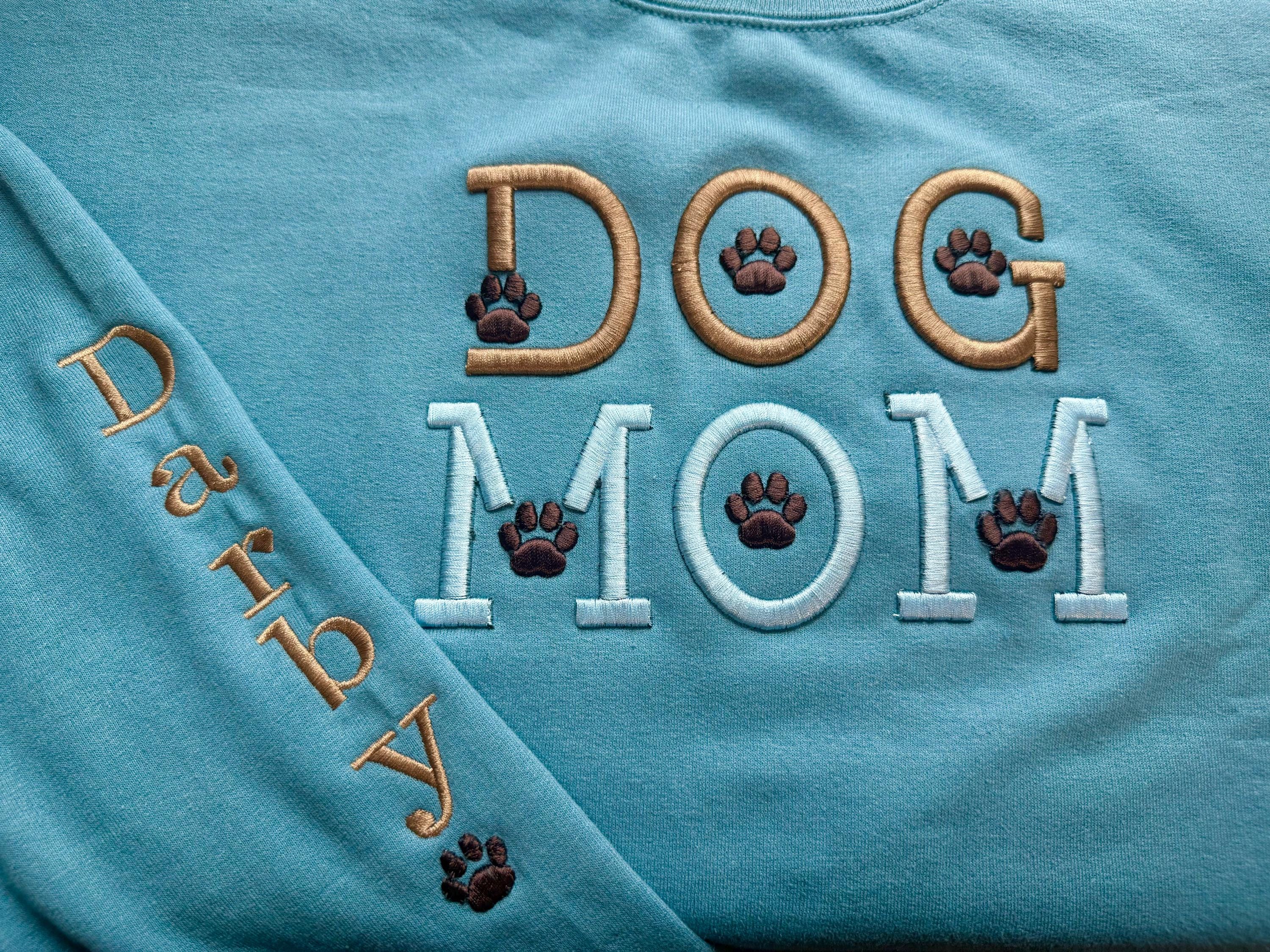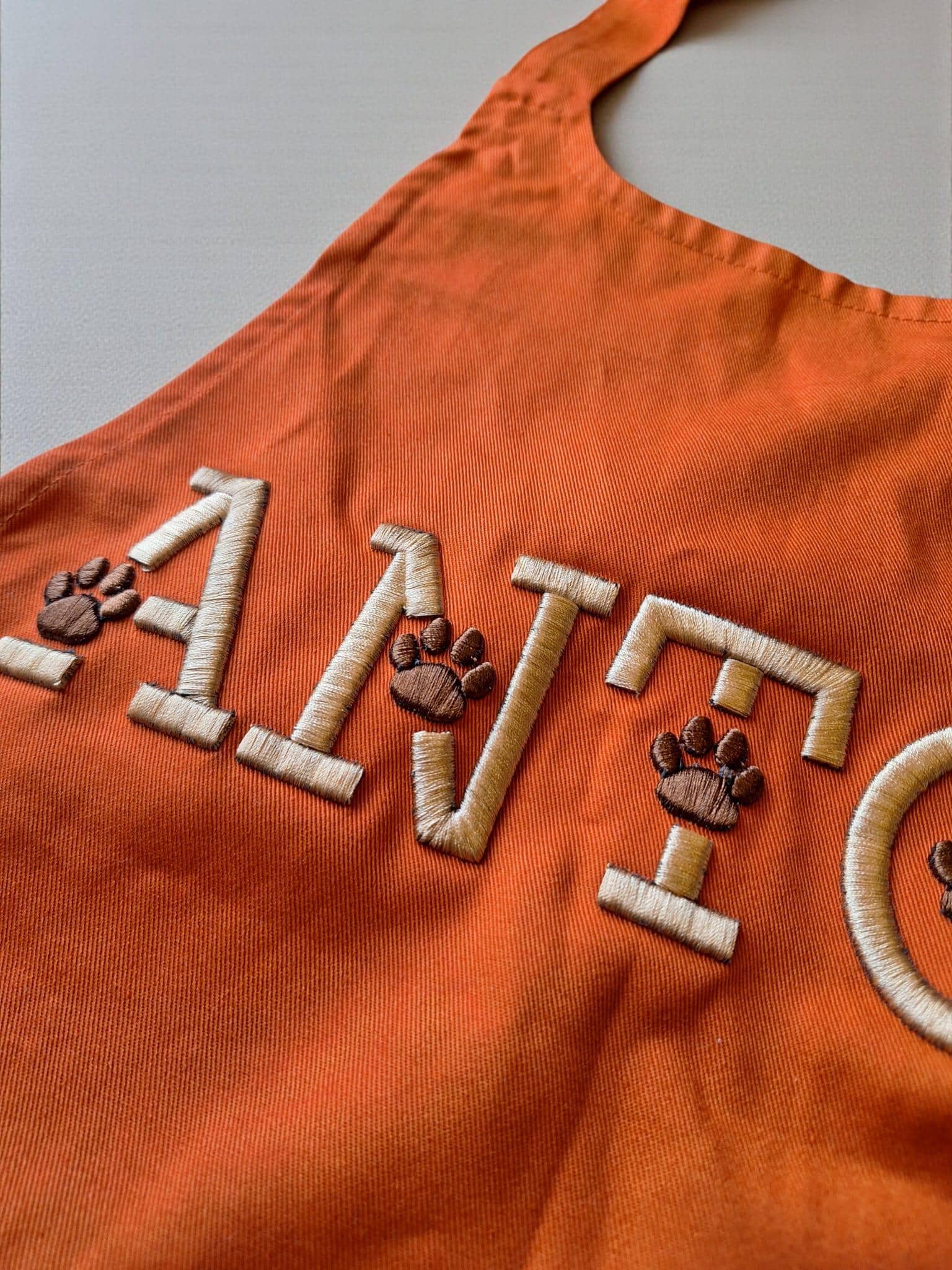
Puff Paw Embroidery Font puffy foam machine embroidery designs 3D raised Cute Paw pet alphabet monogram Block Font 1.8, 2.2, 2.6 inches, BX included
Whole alphabet A-Z uppercase and numbers 0-9.